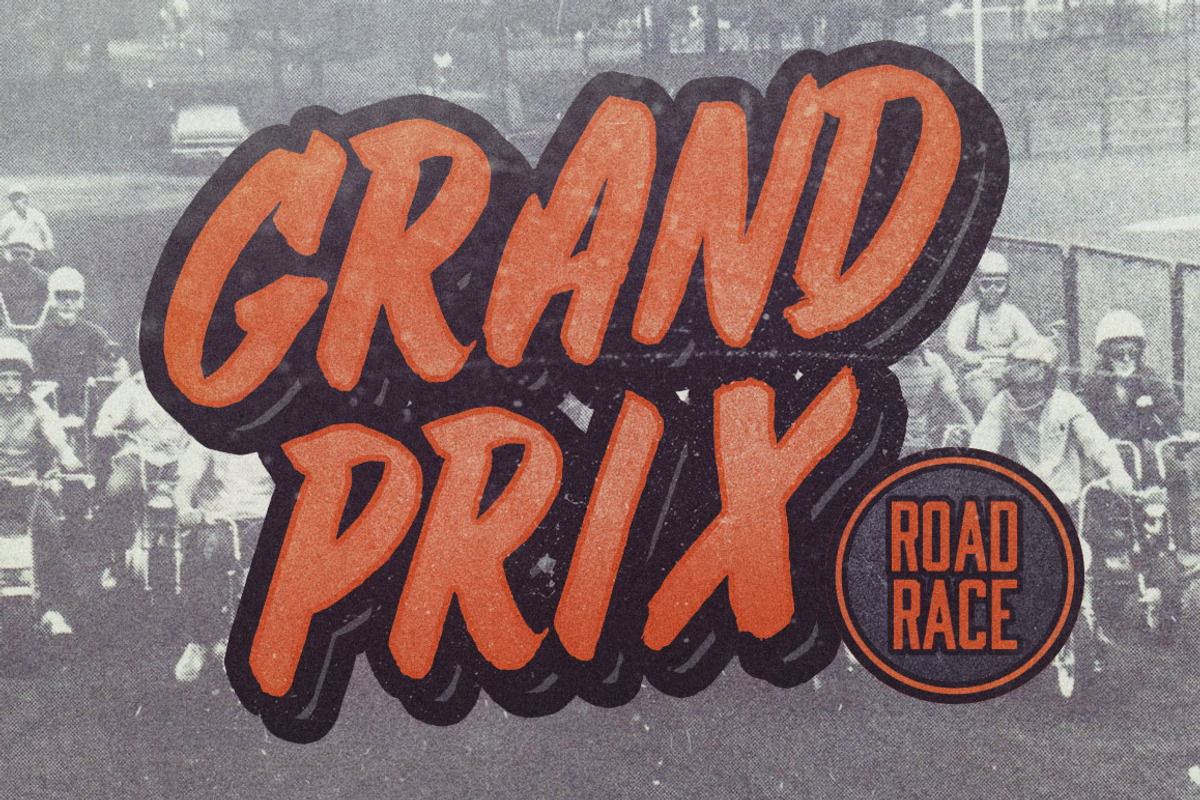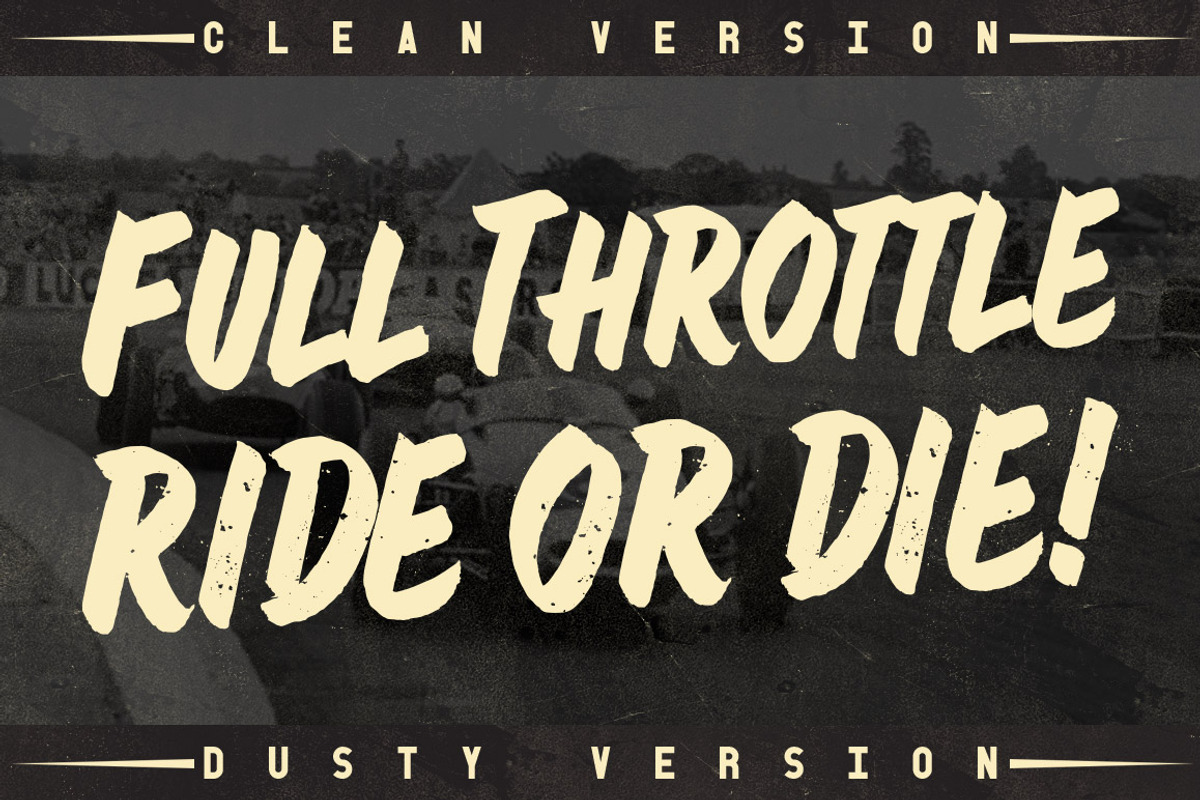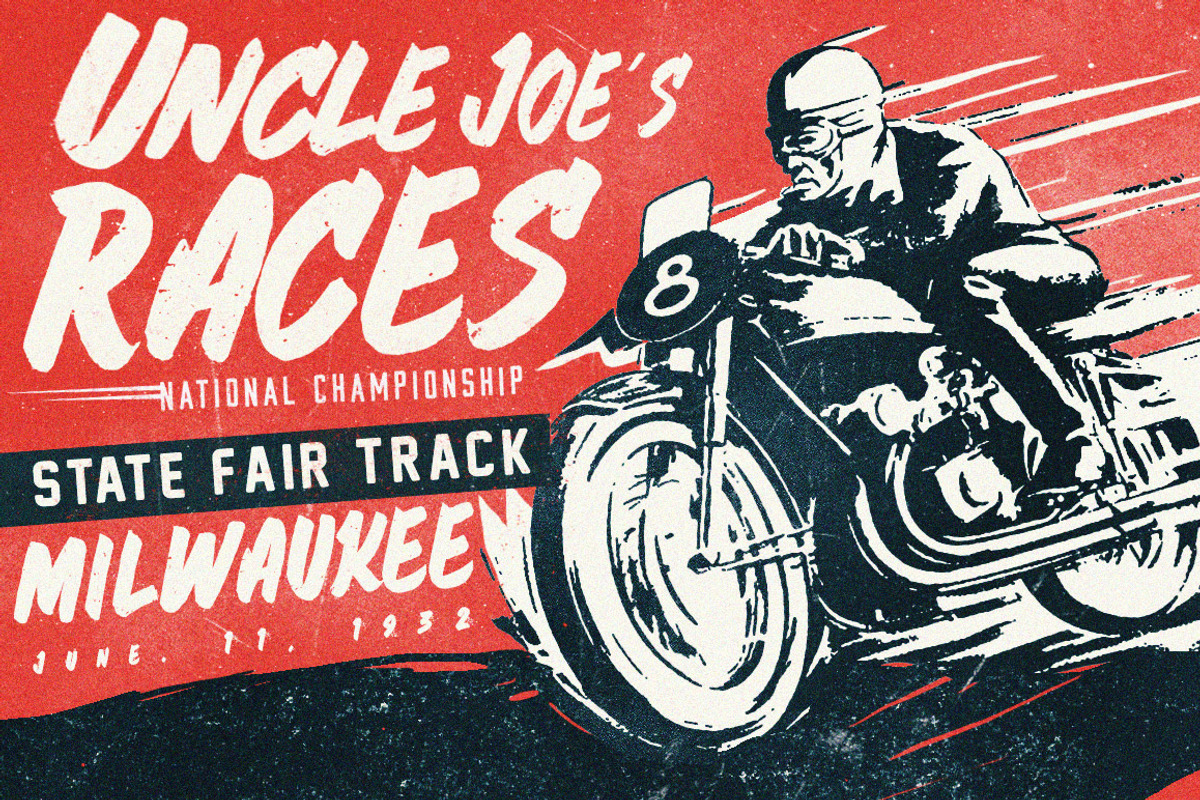
Muffler Brush Hand Lettering font
Muffler Brush Hand Lettering font by Konstantine Studio is a font selected for branding, posters, packaging, typography.
- MUFFLER Inspired by the old vintage poster of Grand Prix and old racing stuff ads, comes with the authentic handmade from pen brush to give
- It comes with 2 version, clean and dusty version, the dusty version comes from the ideas that muffler itself blows everyone behind with the
Why Muffler Brush Hand Lettering font is worth a look
Muffler Brush Hand Lettering font by Konstantine Studio fits naturally into Branding, posters, packaging, typography.